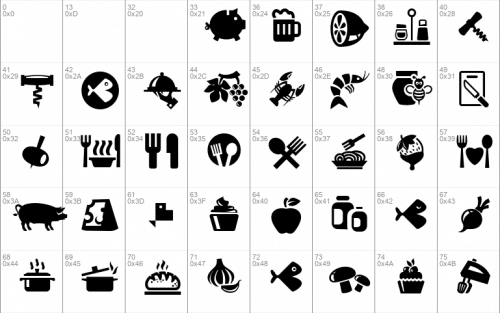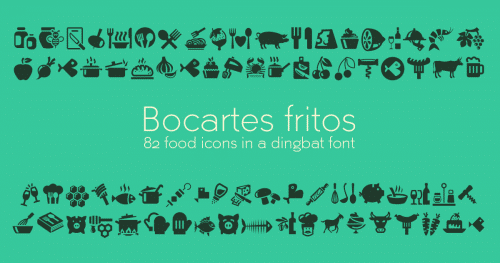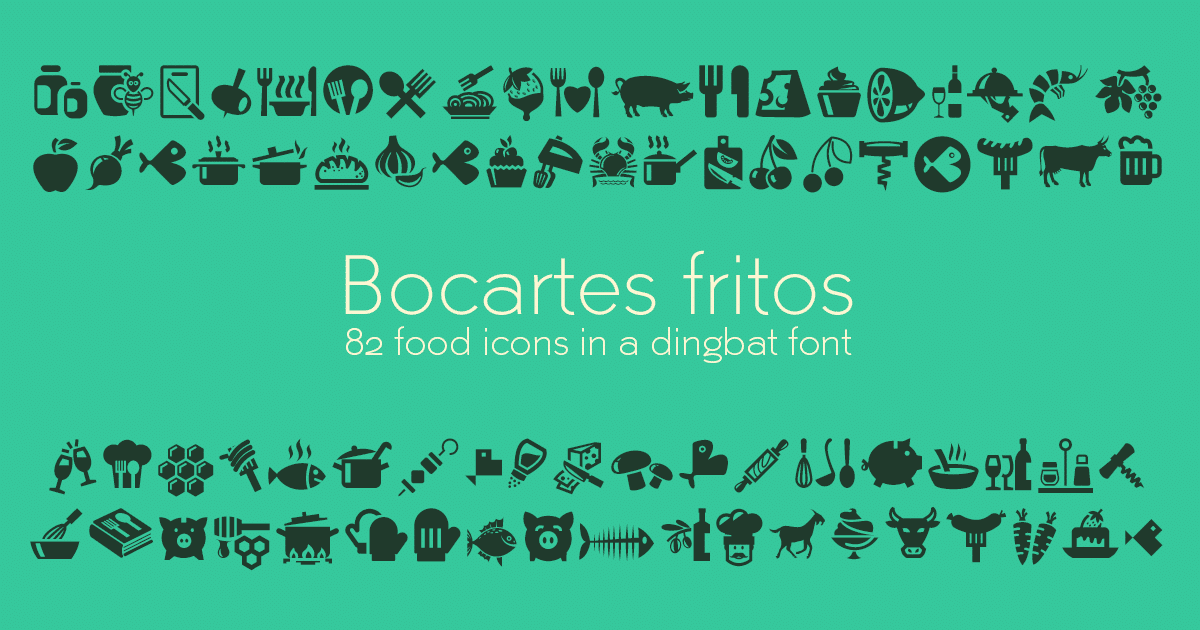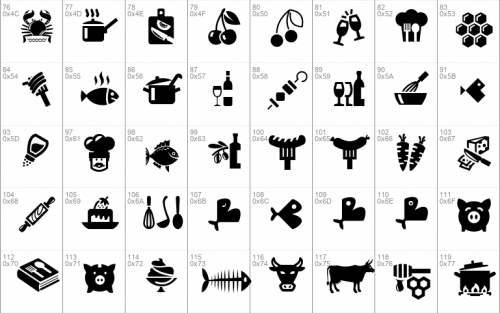
Bocartes Fritos Font is a collection of 82 icons in a Dingbat font related to food. More free fonts: https://defharo.com/fonts/descargar-fuentes-gratis/
- Designer: Fernando Haro